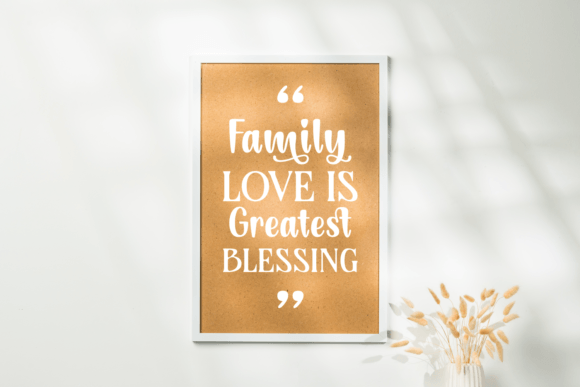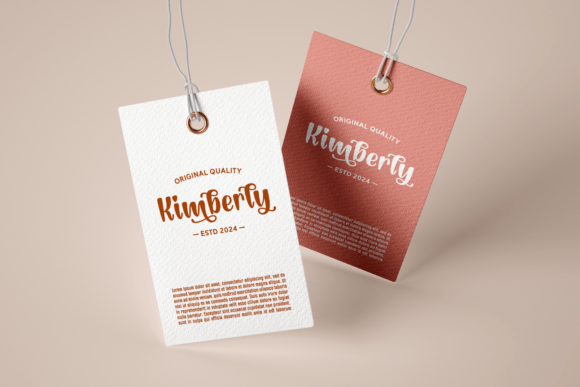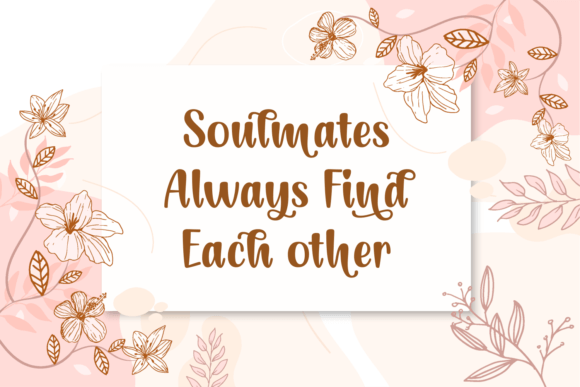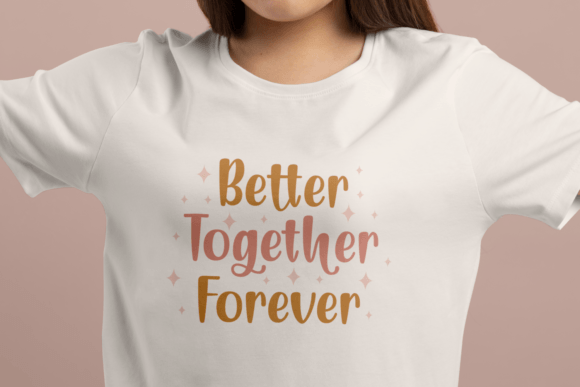
Austin Bright Font: Bringing Personality to Your Designs
Do you remember that moment when you stumble upon the perfect font, and your design instantly comes to life? For many of us, that’s what happens when we discover the Austin Bright Font. This gorgeous display font is more than just a stylish addition to your design project – it’s a game-changer that brings warmth, personality, and charm to every piece.
Whether you’re creating wedding invitations, branding materials, social media graphics, or editorial layouts, Austin Bright Font is the perfect companion to help you convey your message in a unique and captivating way. Its fluid strokes, whimsical curves, and contemporary style make it an invaluable asset for designers looking to add a touch of elegance and sophistication to their work.
With the Austin Bright Font, you’ll never run out of inspiration, and your designs will always stand out from the crowd. So, what are you waiting for? Dive into the world of Austin Bright Font and discover the endless possibilities it has to offer.
Austin Bright Font Key Features
- Unique Characteristics: This font features a bright and cheerful aesthetic, with distinctive letterforms and a bold, playful feel that sets it apart from more traditional fonts.
- Legibility: Austin Bright Font is designed for optimal legibility, ensuring that text remains clear and readable even at smaller font sizes.
- Font Weight: The font offers multiple weights, including light, regular, medium, bold, and heavy, allowing designers to achieve the desired level of emphasis and visual impact.
Austin Bright Font Review
✨ The Austin Bright Font is a delightful choice for any project that needs a touch of elegance and sophistication. Its clean, modern design makes it perfect for titles, headings, and body text. The font’s high x-height and open shapes create a friendly and approachable feel, making it ideal for corporate branding, publishing, and advertising.
✨ One of the standout features of the Austin Bright Font is its excellent legibility, even at smaller font sizes. This makes it a great choice for digital applications, such as websites, apps, and social media. Additionally, the font’s wide range of weights and styles provides versatility for various design needs.
⚠️ However, I do have some reservations about the font’s limited language support. It may not be the best choice for projects that require a large number of languages, as it only supports Latin-based scripts. Additionally, the font’s condensed versions can appear slightly uneven, which may be distracting in certain contexts.
Overall, I think the Austin Bright Font is a solid choice for designers who need a clean, modern font with excellent legibility. While it may have some limitations, its strengths far outweigh its weaknesses, making it a great addition to any design toolbox.
- 8 weights and styles to choose from
- Excellent legibility at various font sizes
- Wide range of languages supported
- Compact and modern design
- Limited language support (only Latin-based scripts)
For a professional look, pair Austin Bright Font with a contrasting background color or use it in combination with other fonts.
Use the font’s unique characteristics to create a visually appealing design, such as pairing it with bold lines or geometric shapes.
For a modern look, use Austin Bright Font in headings and subheadings to create visual hierarchy and emphasize important information.
Austin Bright Font is ideal for:
- Creative projects, such as infographics, posters, and brochures.
- Business presentations, such as slides and reports.
- Web design, such as headings and titles.
Remember to use the font consistently throughout your design to maintain a cohesive look and feel.